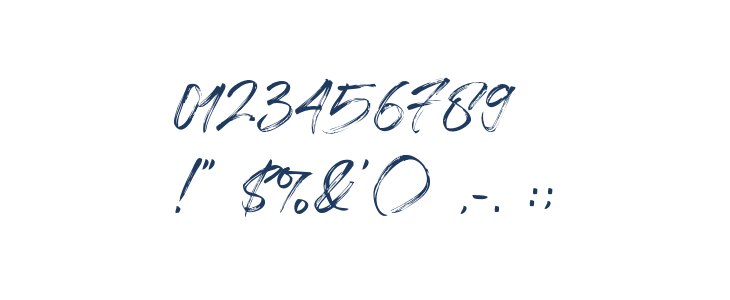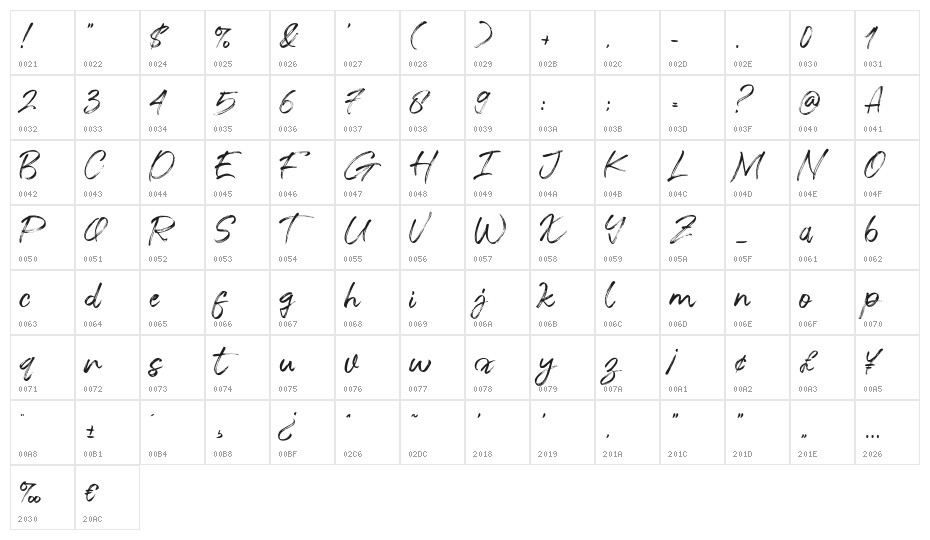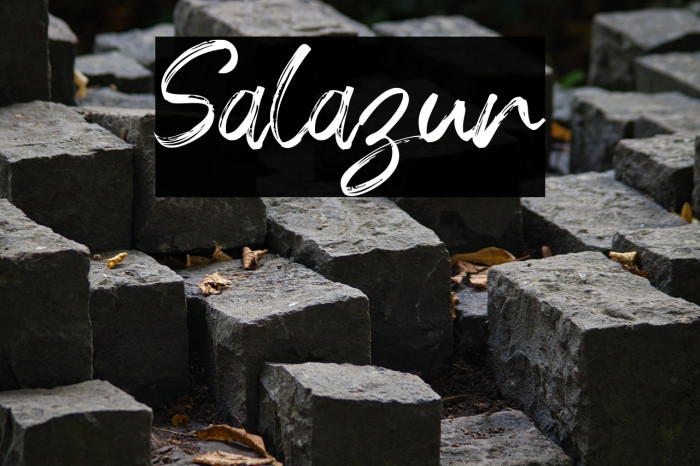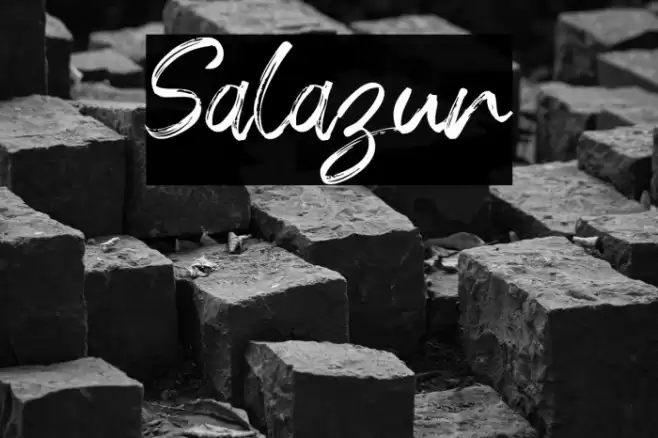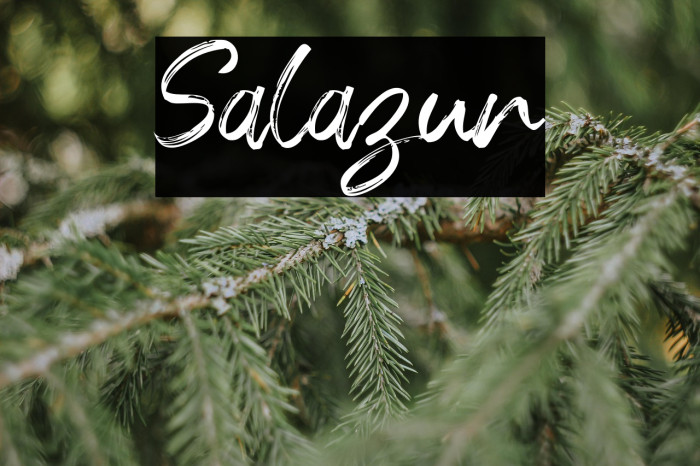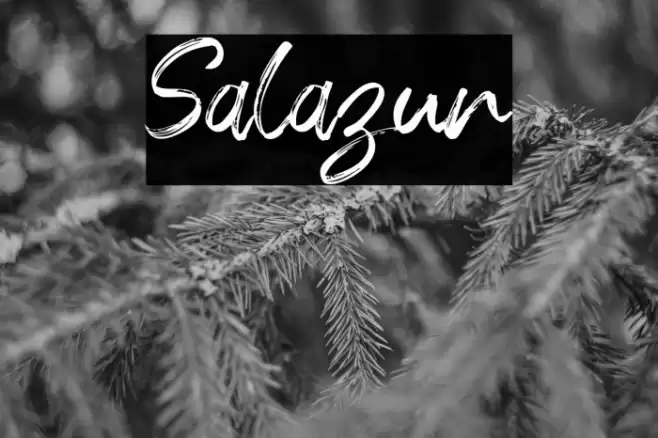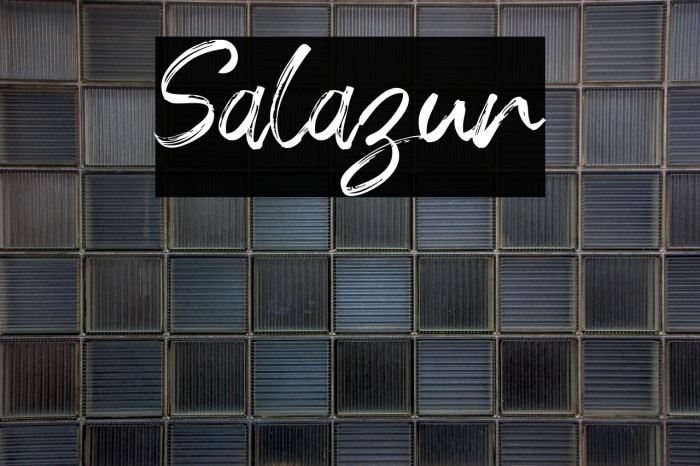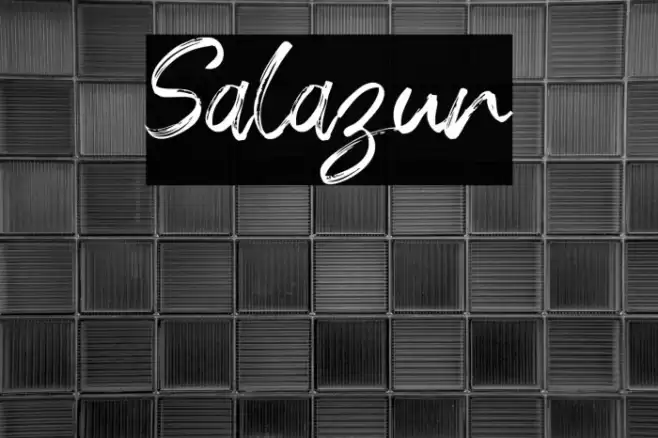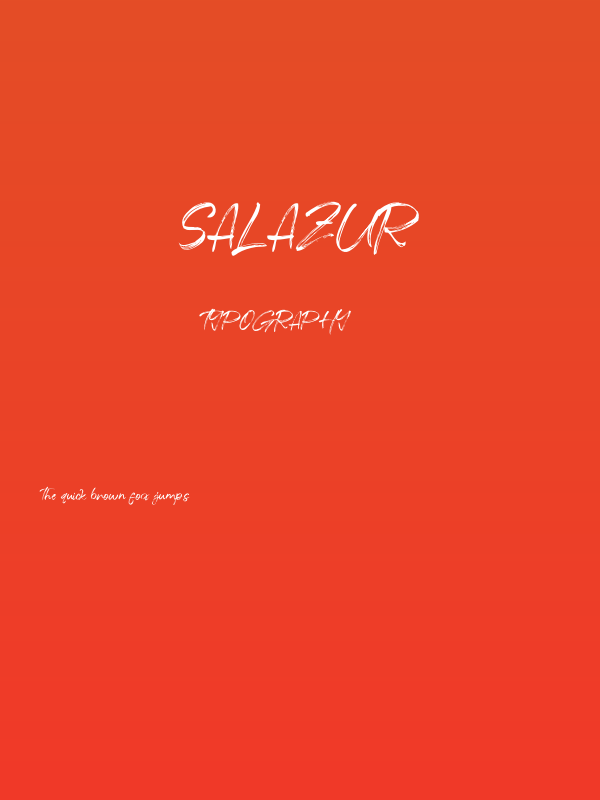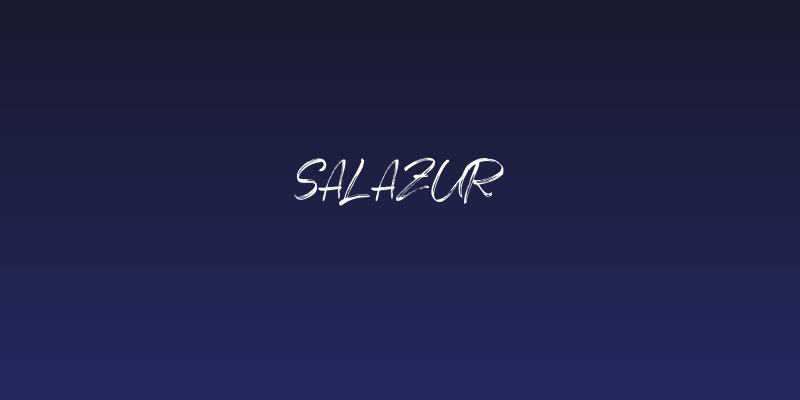
Salazur Font
Salazur Description
This font exhibits a dynamic and expressive style, characterized by its brush-like strokes and fluid, cursive design. The uppercase and lowercase letters flow seamlessly, creating a sense of movement and energy. The strokes vary in thickness, adding a textured and artistic feel. The numerals and special characters maintain this lively aesthetic, making the font suitable for creative and informal applications. Its handwritten appearance gives it a personal touch, ideal for projects that require a human element.
| Proposed Projects | Ideal for greeting cards, invitations, artistic posters, and branding that seeks a personal touch. |